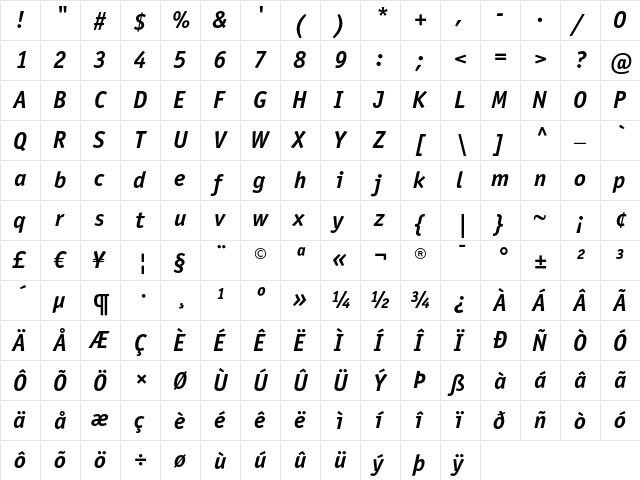
ITC Officina Sans LT Bold Italic
Design Context for ITC Officina Sans LT Typeface
ITC Officina Sans LT offers clean, dependable letterforms without strong stylistic allegiance, making it a practical choice for designers who need flexibility. The dynamic lean of this cut emphasises speed and emphasis in any layout. Its bold stroke weight gives it real presence on the page.